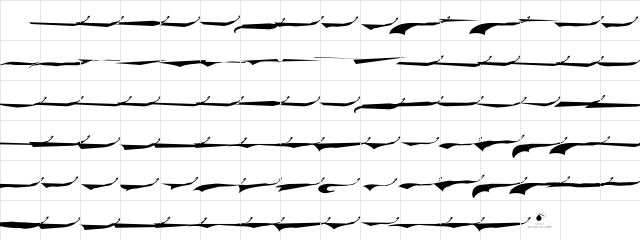
Complete LHF Ballpark Swashes Regular glyph index. Displaying only characters natively supported by LHF Ballpark Swashes Regular font.
LHF Ballpark Swashes flows with the natural rhythm of handwritten lettering, making it ideal for designs that call for warmth and personal expression.
Font Pairing: Combine LHF Ballpark Swashes with a simple geometric sans for maximum contrast - the tension between flowing curves and clean structure is a classic typographic pairing.
Pro Tip: Use LHF Ballpark Swashes for short runs of text - names, titles, or taglines. Extended body copy in script faces tires the eye quickly.